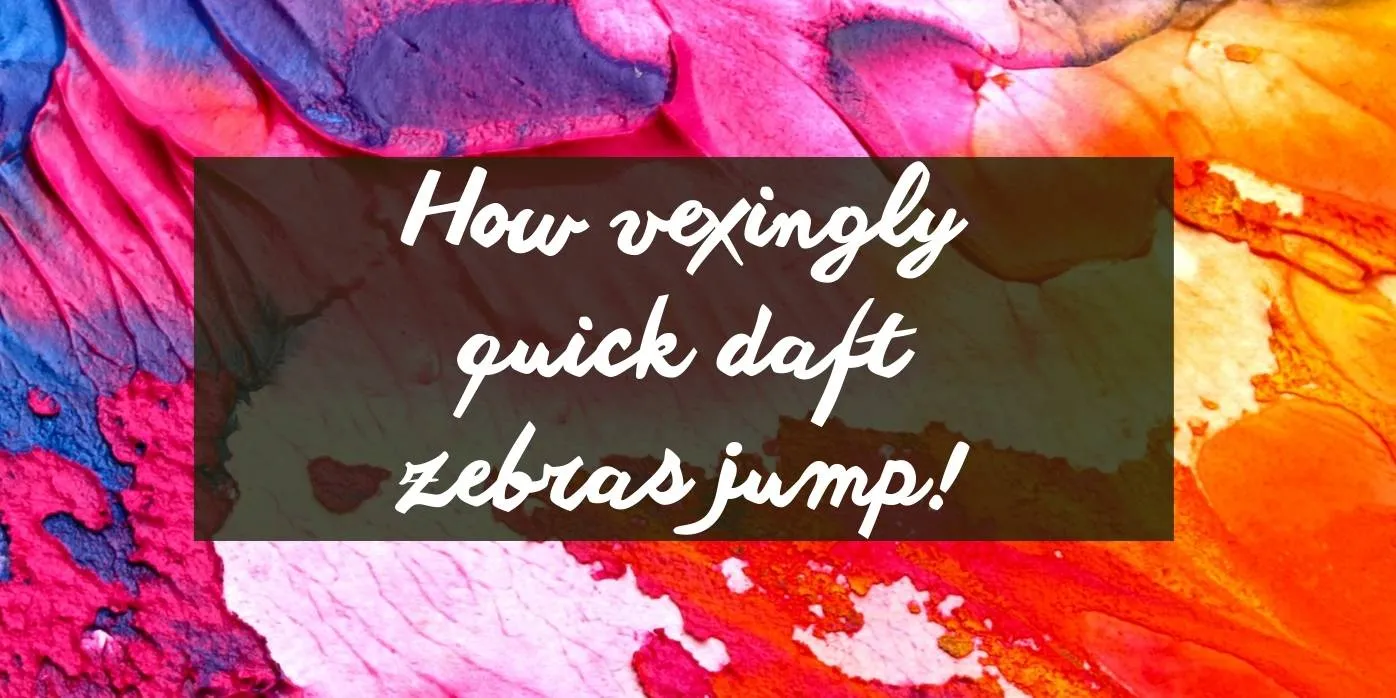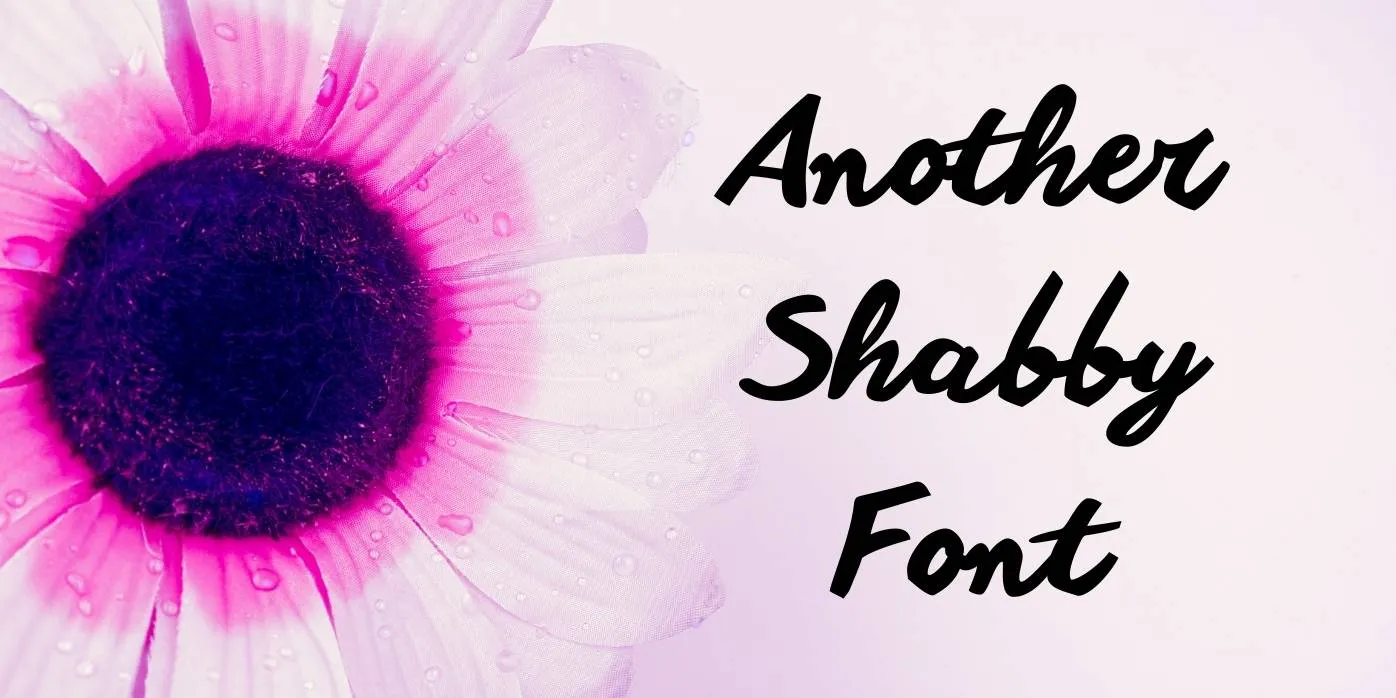
Another Shabby Font
Another Shabby Font is developed and published by Zeta fonts. This foundry specializes in original, high-quality typefaces for print and digital media. This attractive font belongs to the Script typeface. It is available in Regular and Italic styles.
This classy Font comes with a complete character set that supports most of the Western European languages. This font has an informal and vintage look, making it perfect for projects that need a touch of personality. This typeface includes styles such as Regular, Italic, and Bold that give a soft touch to all of your designs. Its special characters and OpenType features make it a great choice for projects that require a custom look.¬† It’s also web-safe and looks great on screens of all sizes.
This typeface is best for Adobe Illustrator and Canva. Its Bold features are amazing. You can use this font with its similar font which is Sacramento Font. If you want to put such attractive font with a touch of personality, then surely pick out this font.
This typeface has keen and clean features. Also, this typeface has clean textures. Its tool generator is best for graphic designs.